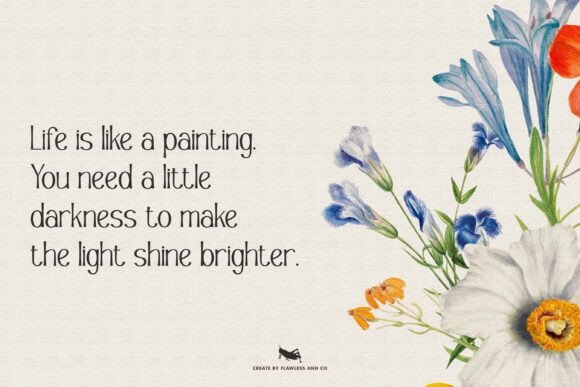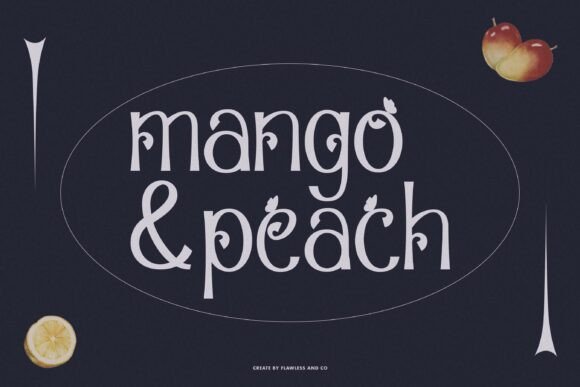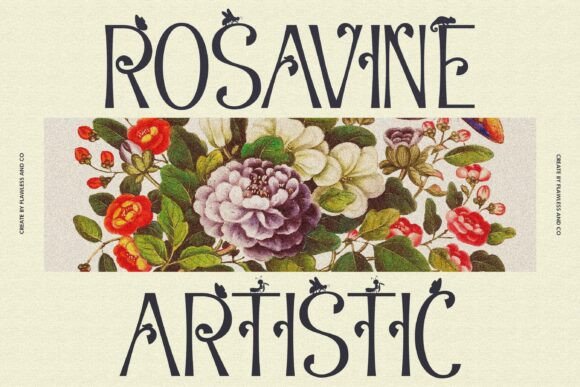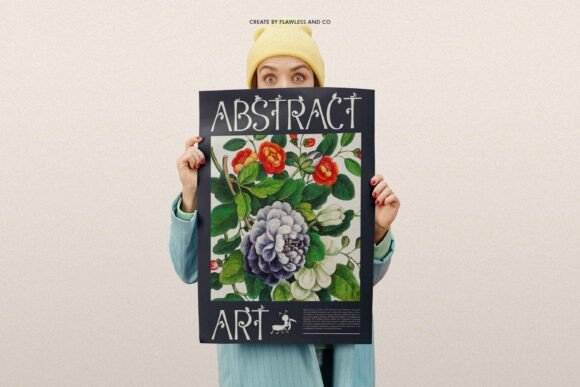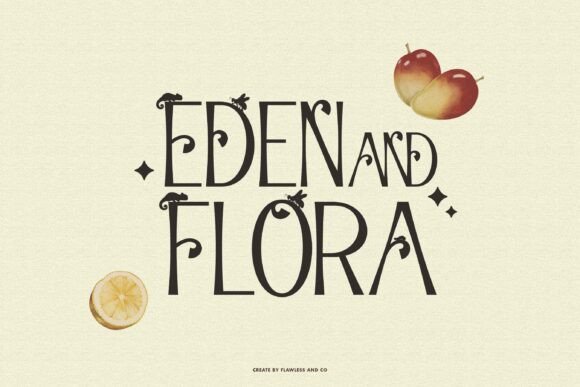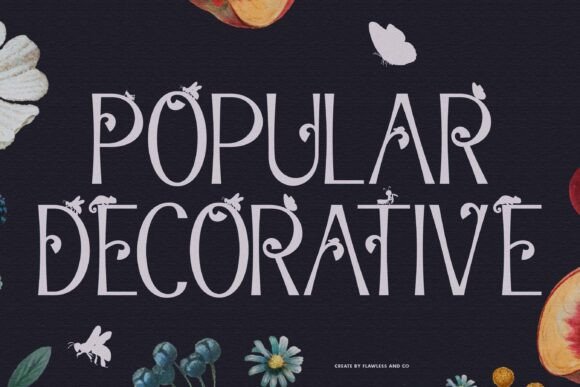
Where Whimsy Meets Artistry: Discover the Magic of the Arboriva Font
As designers, we’ve all been there – staring at a blank page, waiting for that spark of inspiration to strike. And then, it happens: a glimpse of a wildflower, the sound of a babbling brook, or the playful chirp of a bird. This is where the magic begins, and for many of us, it’s the starting point for creating something truly special. For those who crave a dash of whimsy in their designs, the Arboriva Font is about to become your new best friend.
This enchanting display font is more than just a typographic choice – it’s a tool for adding a touch of elegance and playfulness to your projects. With its uniquely crafted alternates and animal-inspired embellishments, the Arboriva Font is perfect for designers looking to create eye-catching posters, children’s book covers, and nature-themed branding that truly stands out.
Arboriva Font Key Features
- Unique Characteristics: Arboriva Font features a unique blend of natural and organic elements, giving it a distinctive look that sets it apart from other fonts.
Arboriva Font Review
Arboriva Font is a beautiful, hand-drawn typeface that’s sure to capture the essence of your design. ✨ The intricate details and elegant lines make it perfect for projects that require a touch of sophistication and whimsy. From branding to packaging, Arboriva Font can elevate your designs to the next level.
One of the standout features of Arboriva Font is its versatility. ✨ It comes in a range of weights, from Light to Bold, making it easy to use in various design contexts. The font also supports multiple languages, which is a huge plus for designers who work with international clients.
However, there are a few limitations to consider. ⚠️ For one, Arboriva Font may not be the best choice for projects that require a highly legible font. The font’s intricate details can make it difficult to read at small sizes. Additionally, the font’s stylized nature may not be suitable for projects that require a more straightforward, sans-serif font.
Overall, I would give Arboriva Font 4 out of 5 stars. While it’s not perfect, its unique character and versatility make it a valuable addition to any designer’s toolkit.
- ✨ Unique, hand-drawn design
- ✨ Versatile and comes in multiple weights
- ✨ Supports multiple languages
- ⚠️ May not be suitable for highly legible projects
- ⚠️ Stylized nature may not be suitable for straightforward projects
Arboriva Font is perfect for:
- Wedding and event branding